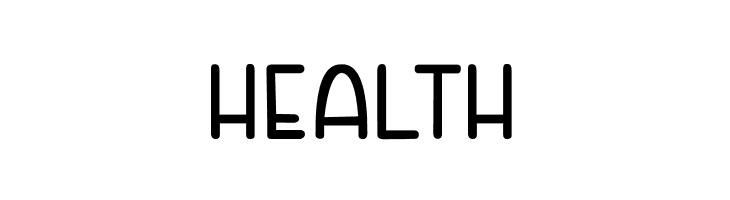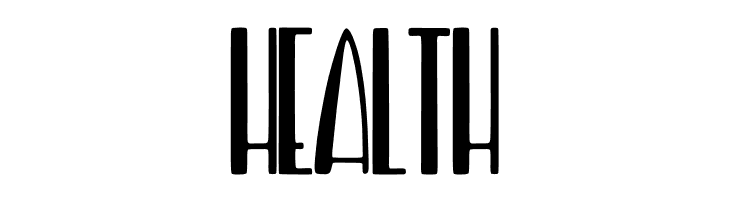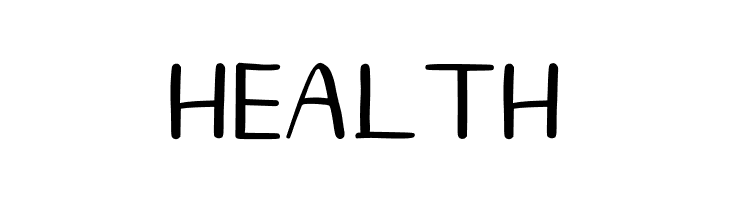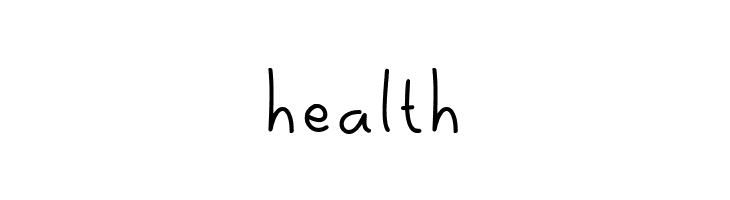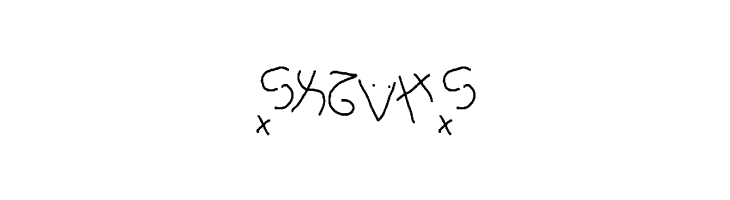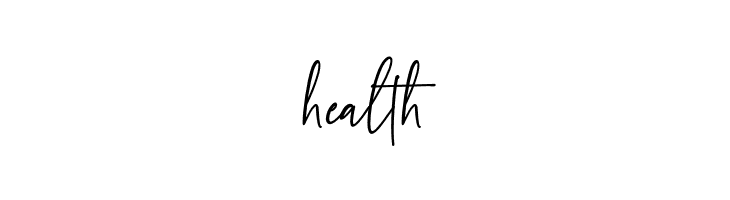
( Fonts by Stacy Wilson )
A playful, rounded font with smooth curves and a friendly appearance.
( Fonts by Docallisme HAS Feat Dutsky )
A playful, elongated font with narrow characters and a whimsical style.
( Fonts by Thomas Aradea )
A playful, rounded font with a casual and friendly style.
( Fonts by Makashi )
A playful, handwritten font with rounded, irregular letterforms.
( Fonts by Agustian Eko Saputro )
A bold, expressive handwritten font with dynamic brush-like strokes.
A bold, handwritten font with a playful and casual style.